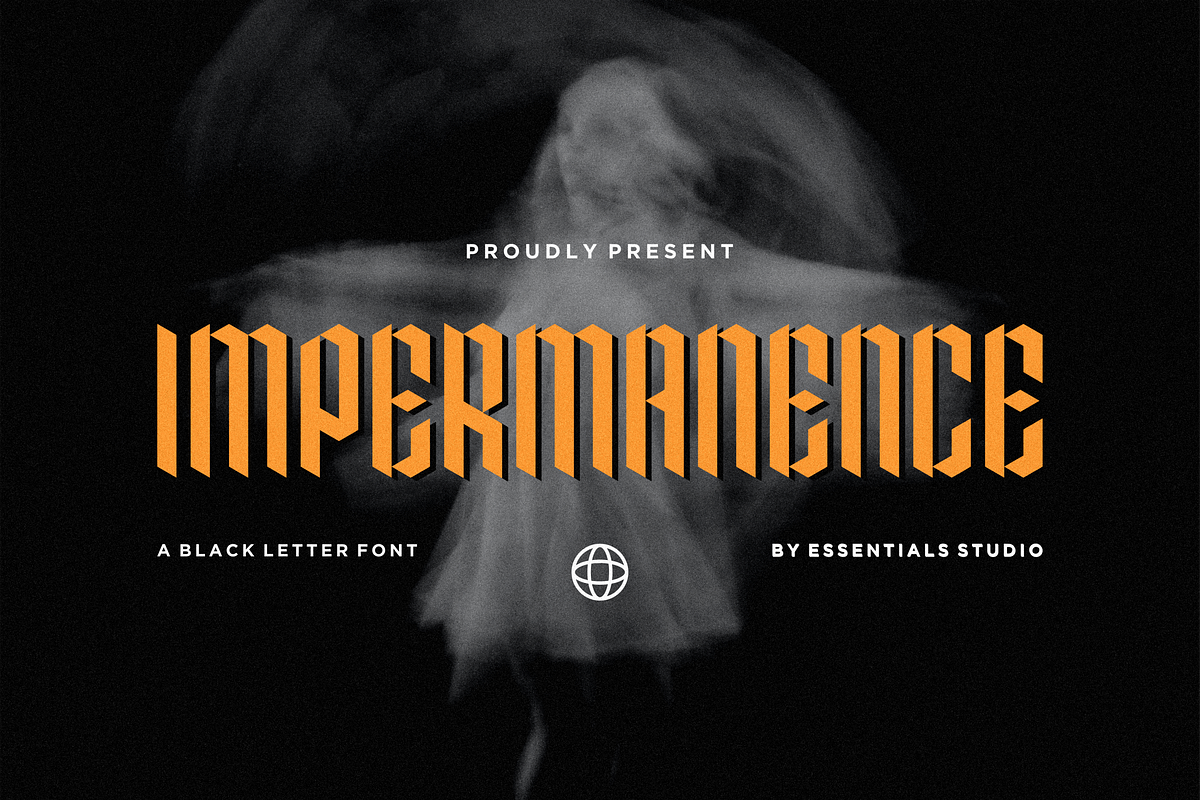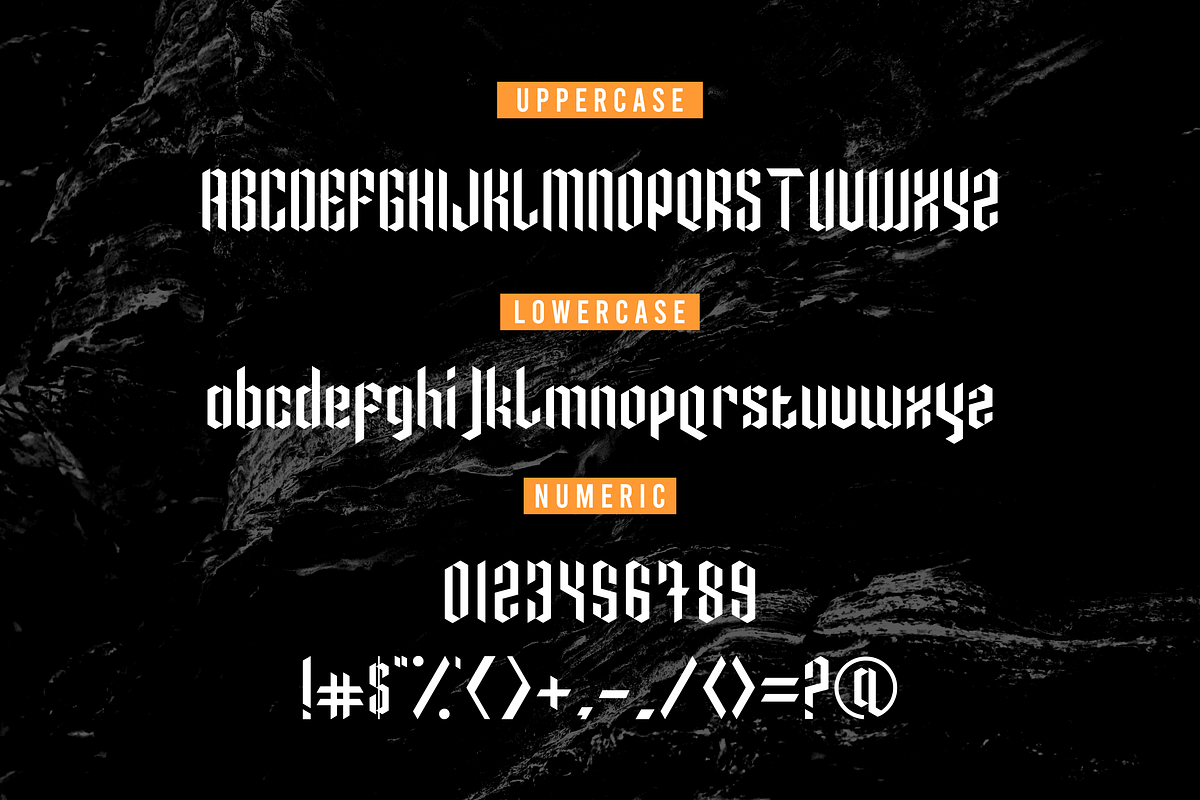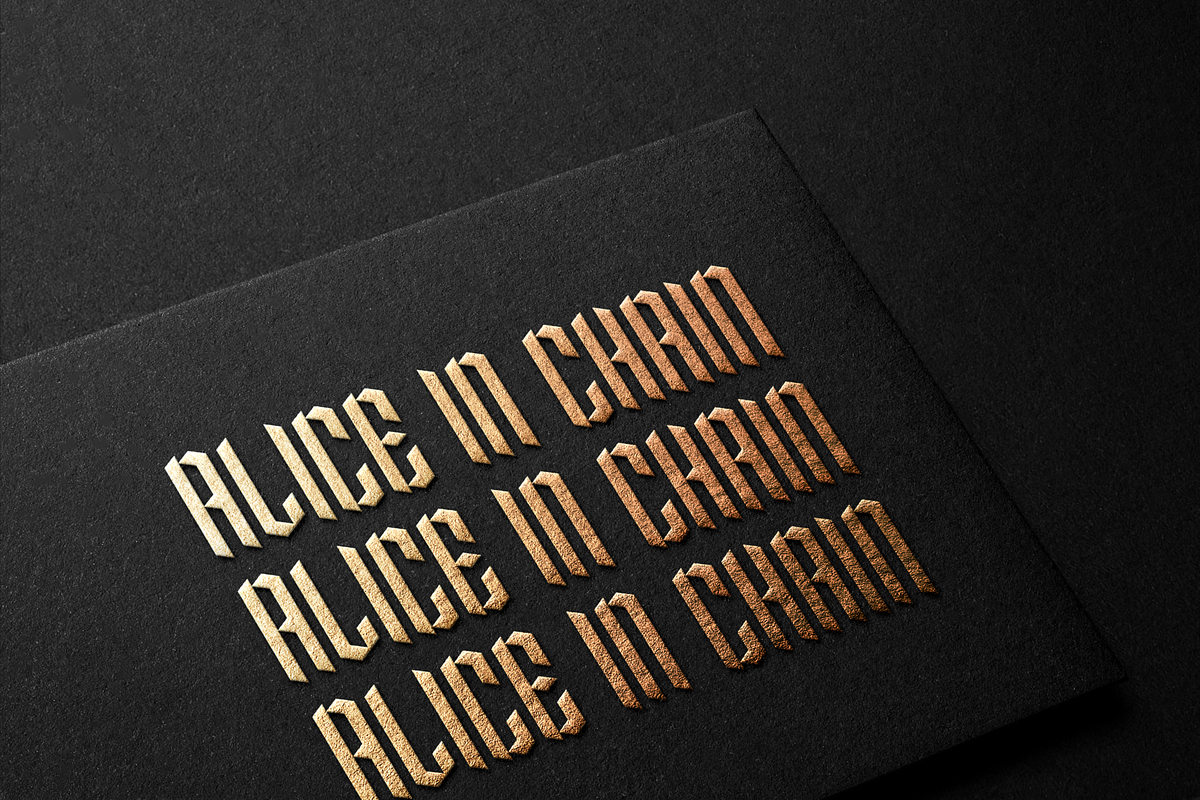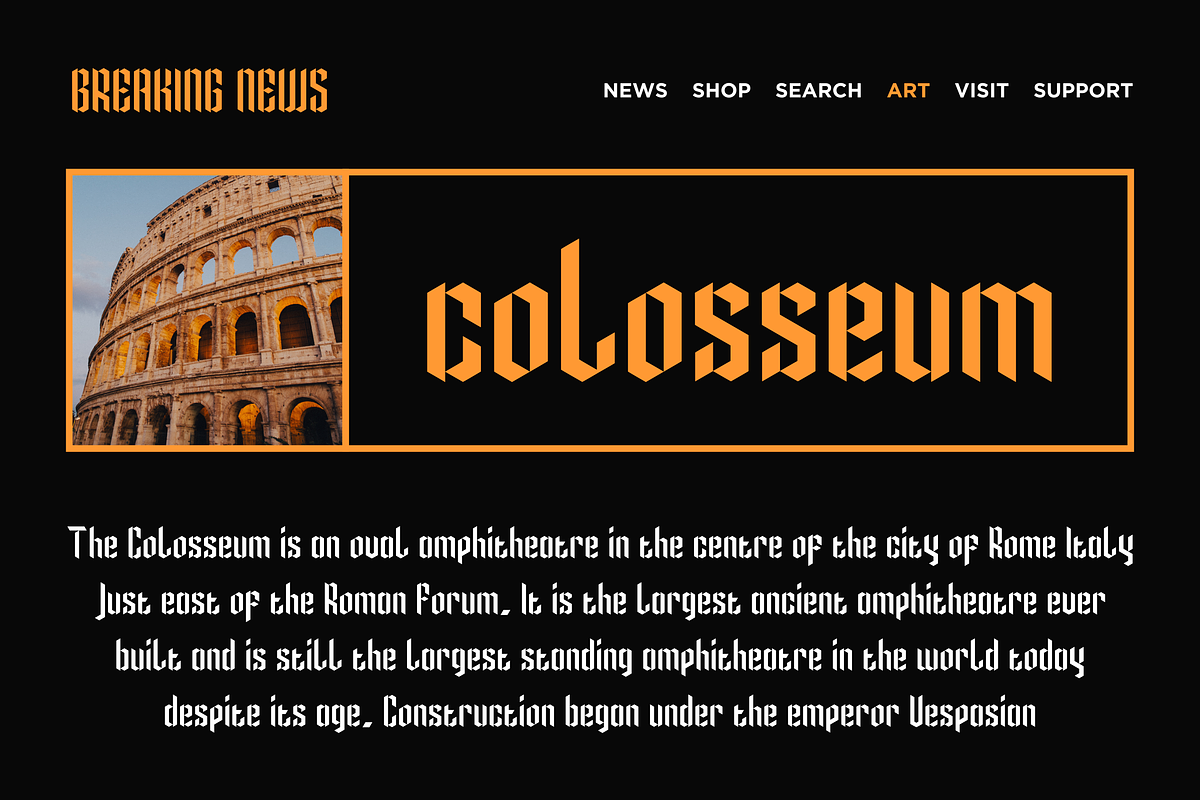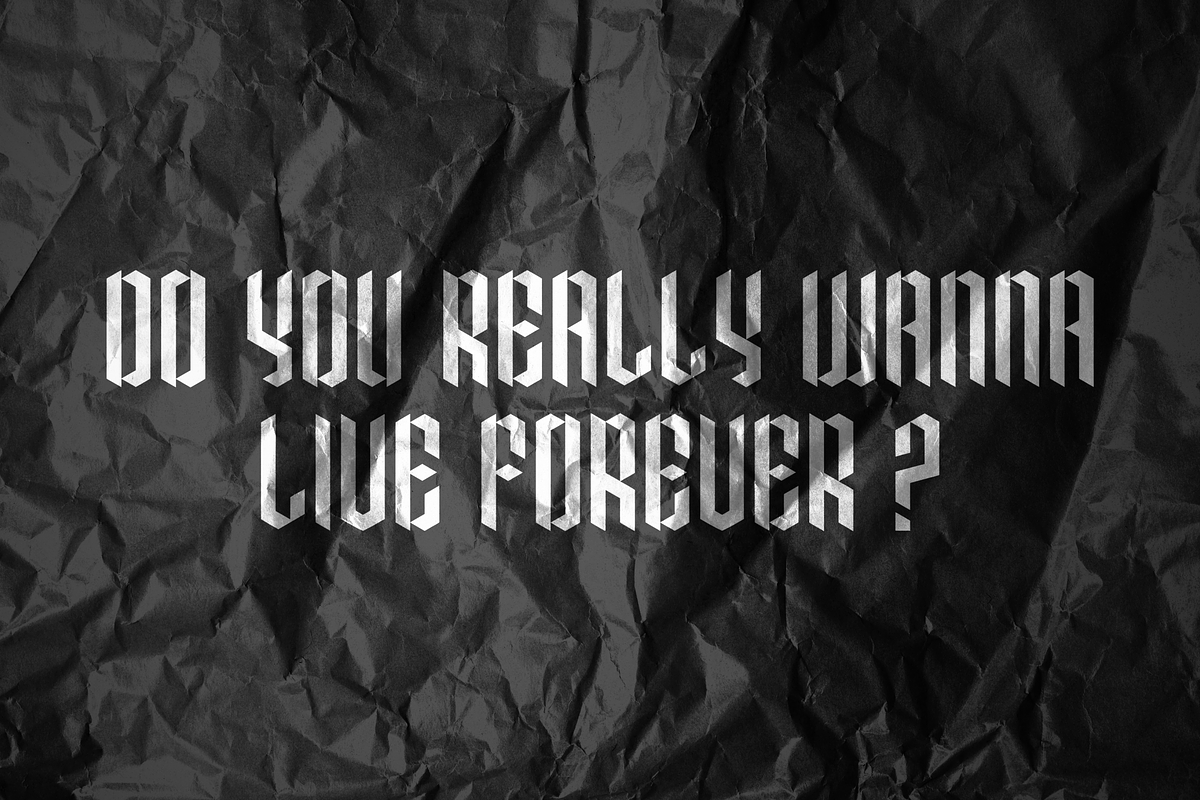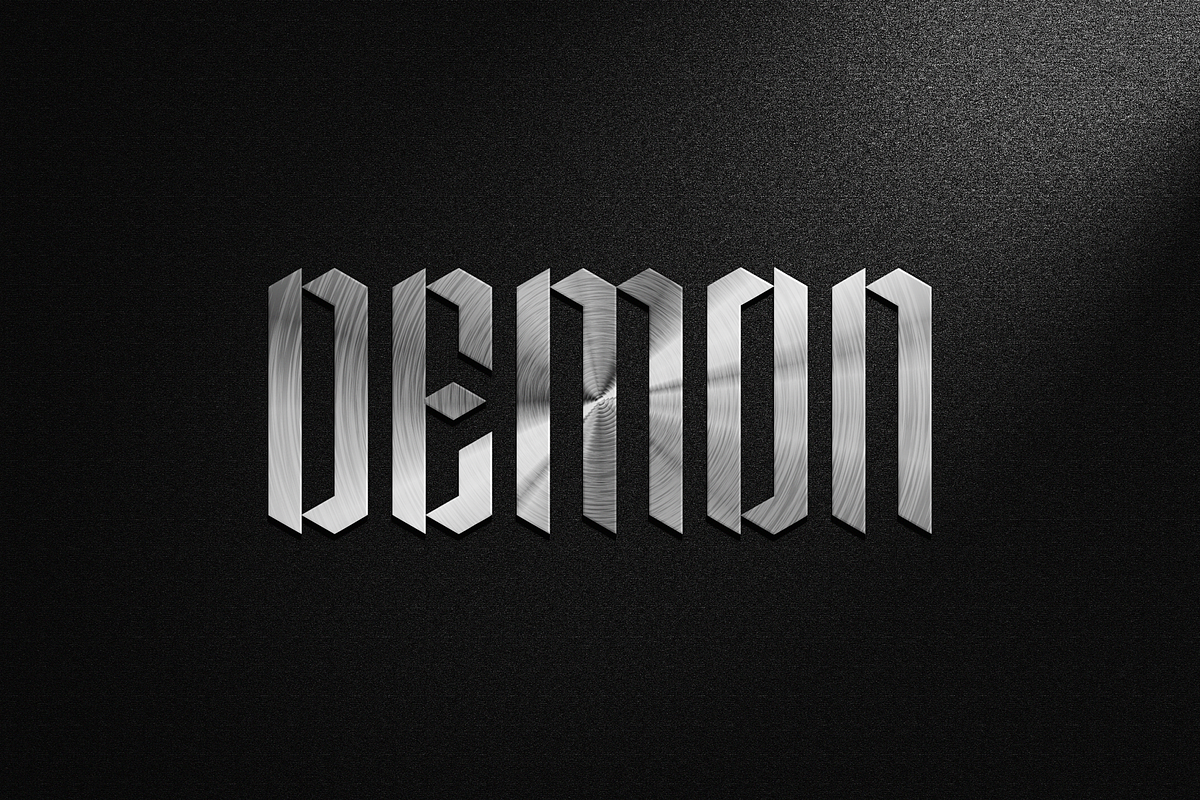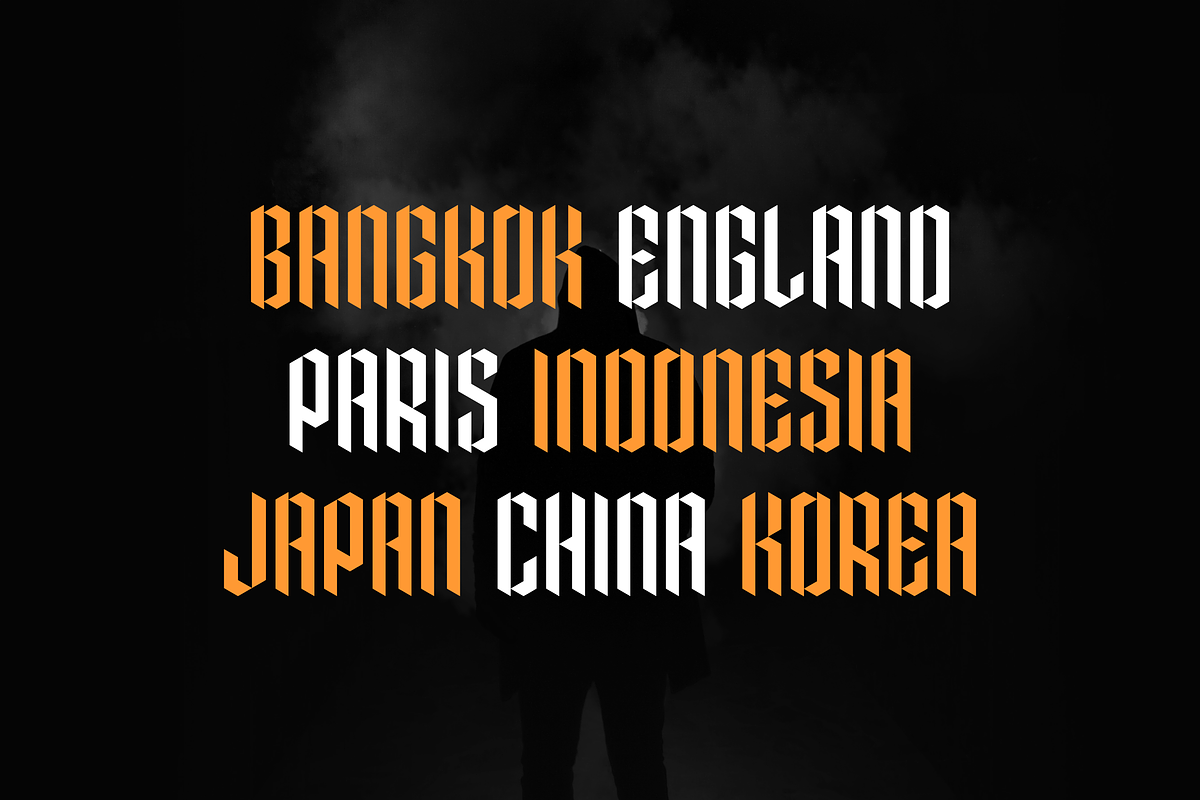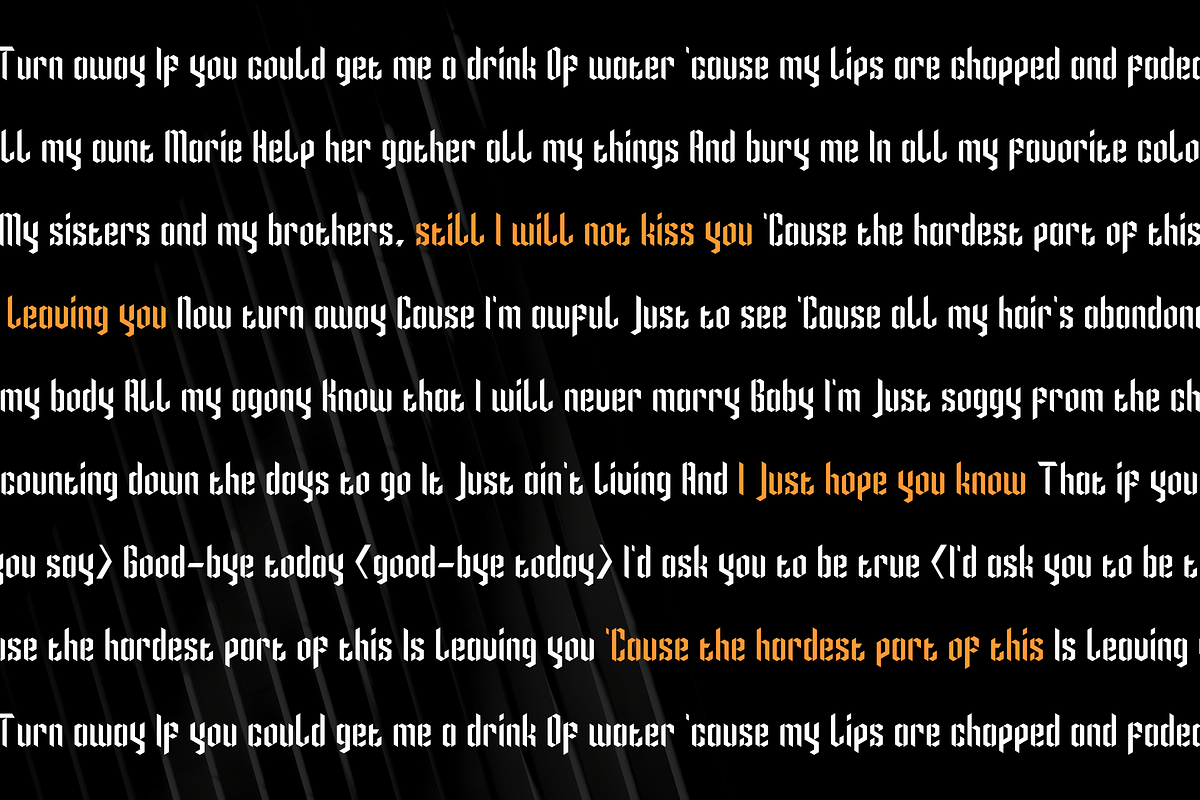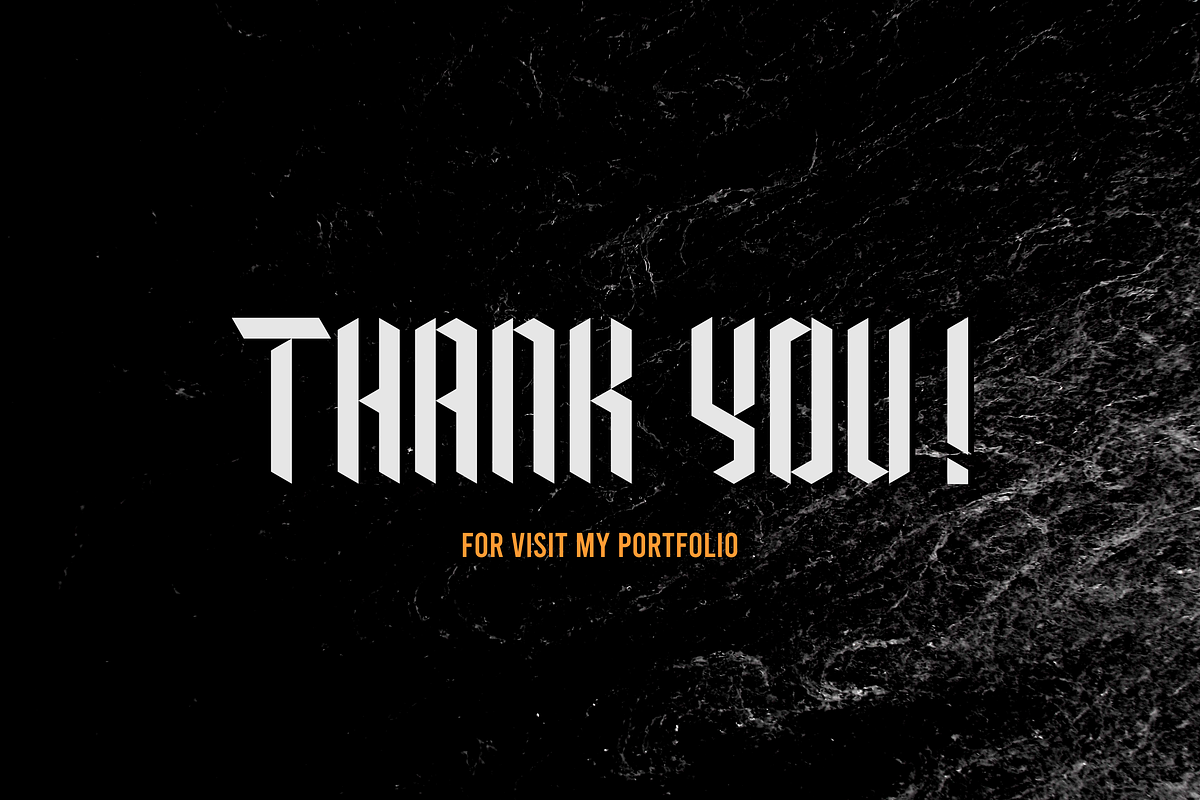
IMPERMANENCE
Introducing by Essentials Studio
Proudly Present, IMPERMANENCE is a Black Letter Font
IMPERMANENCE is perfect for product packaging, branding project, megazine, social media, wedding, or just used to express words above the background.